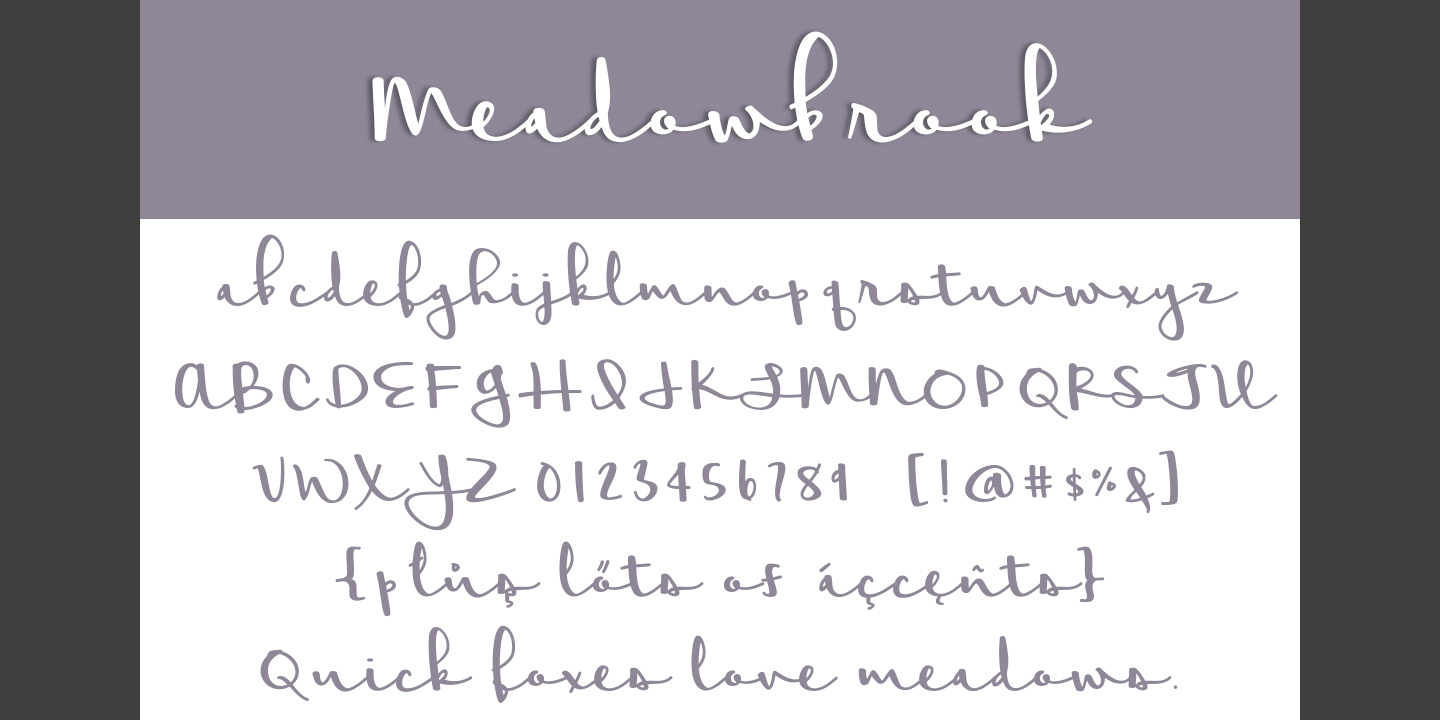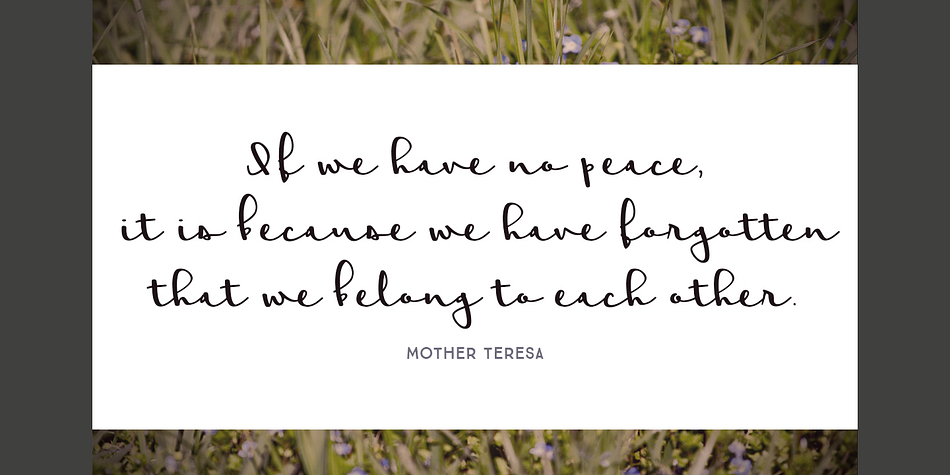
Meadowbrook is a script font published by Brittney Murphy Design.
Meadowbrook is a smooth and calming weighted script. Great for cards or invitations!